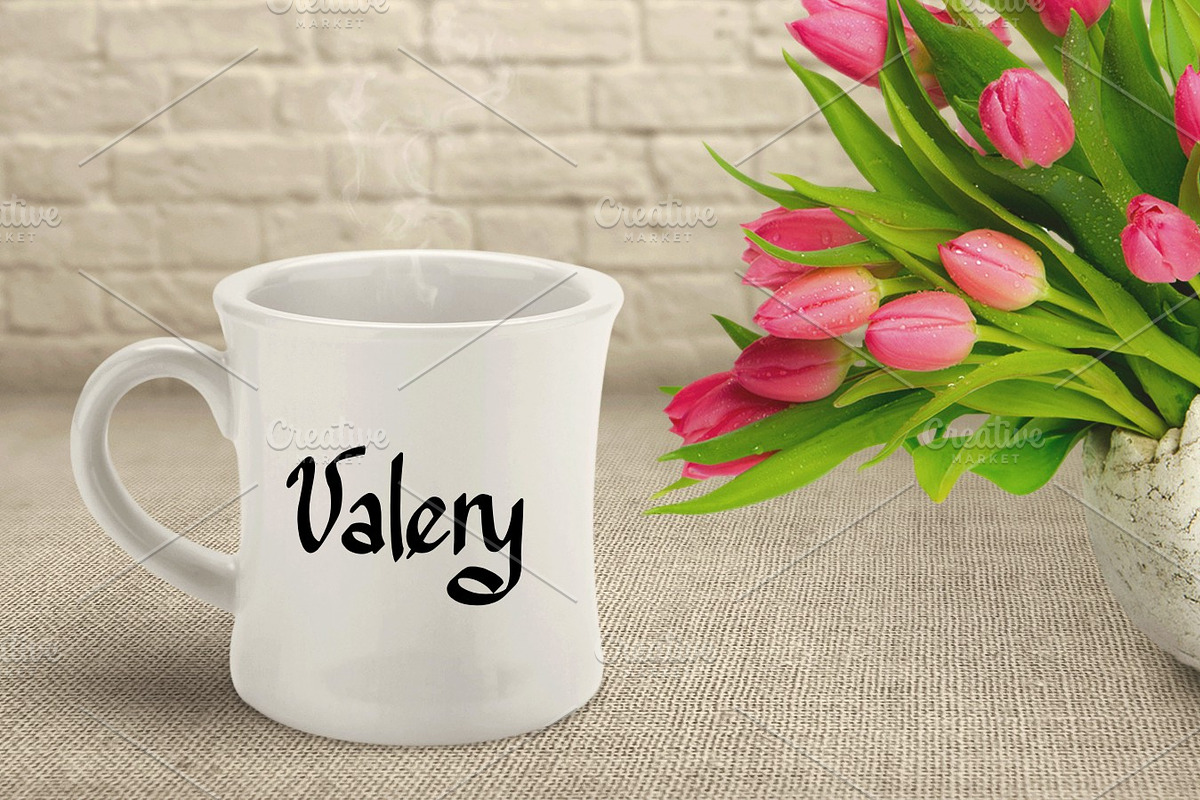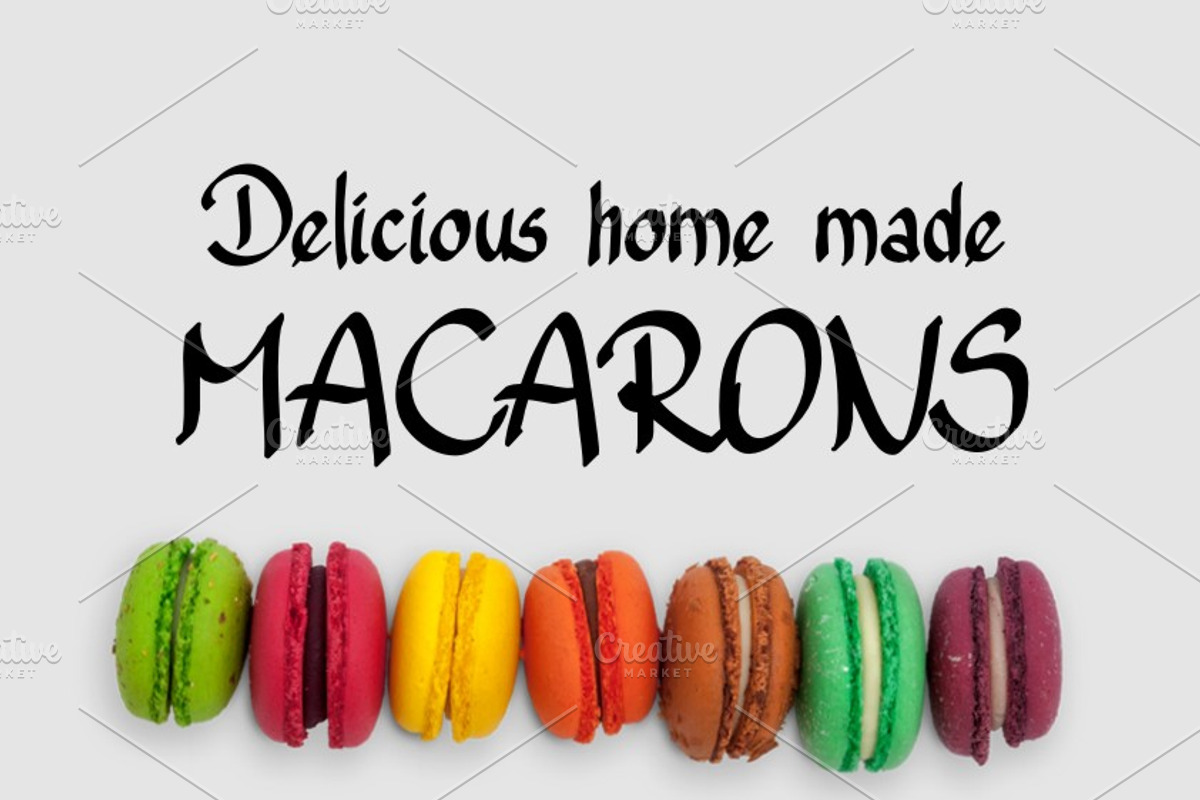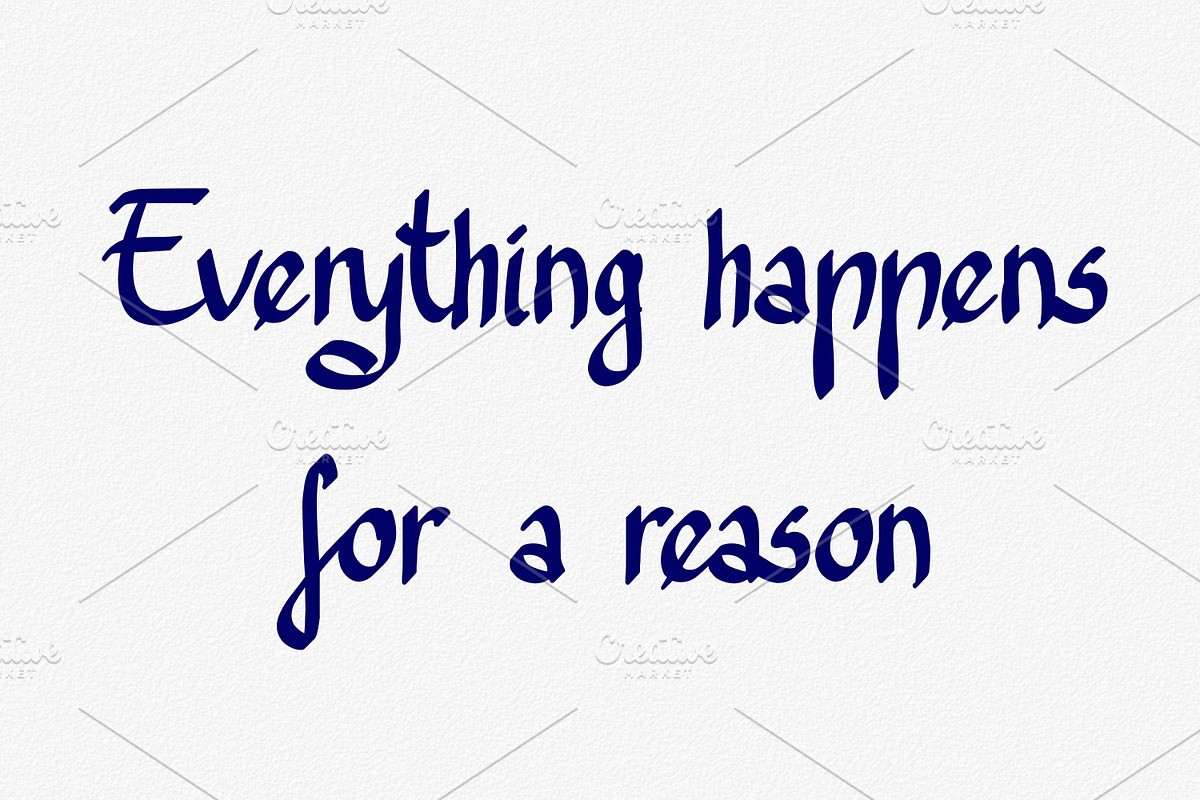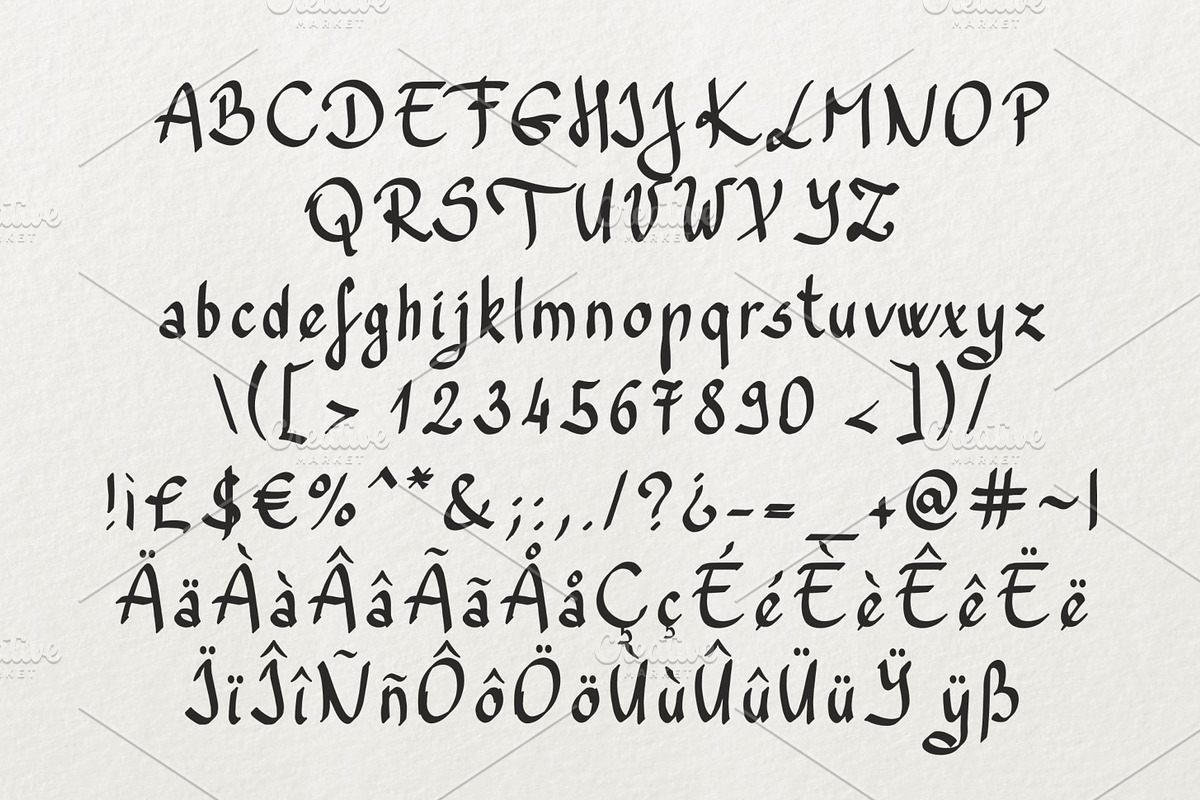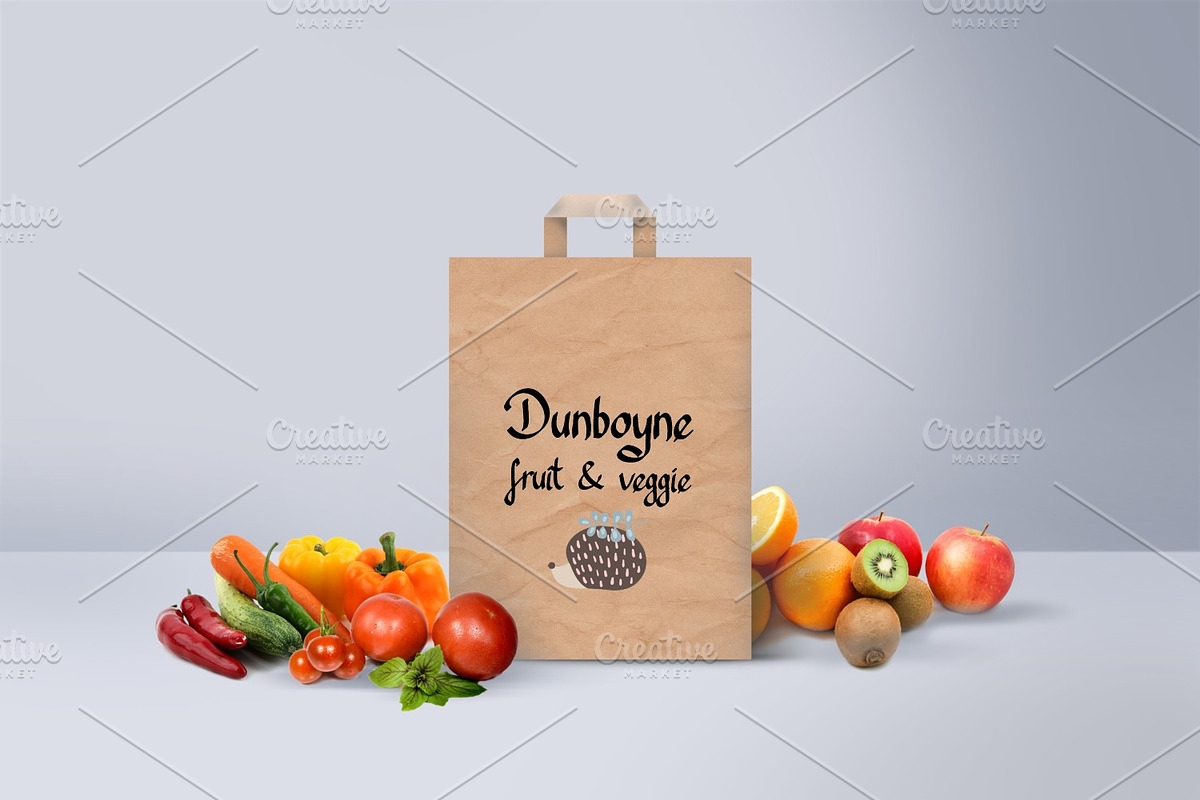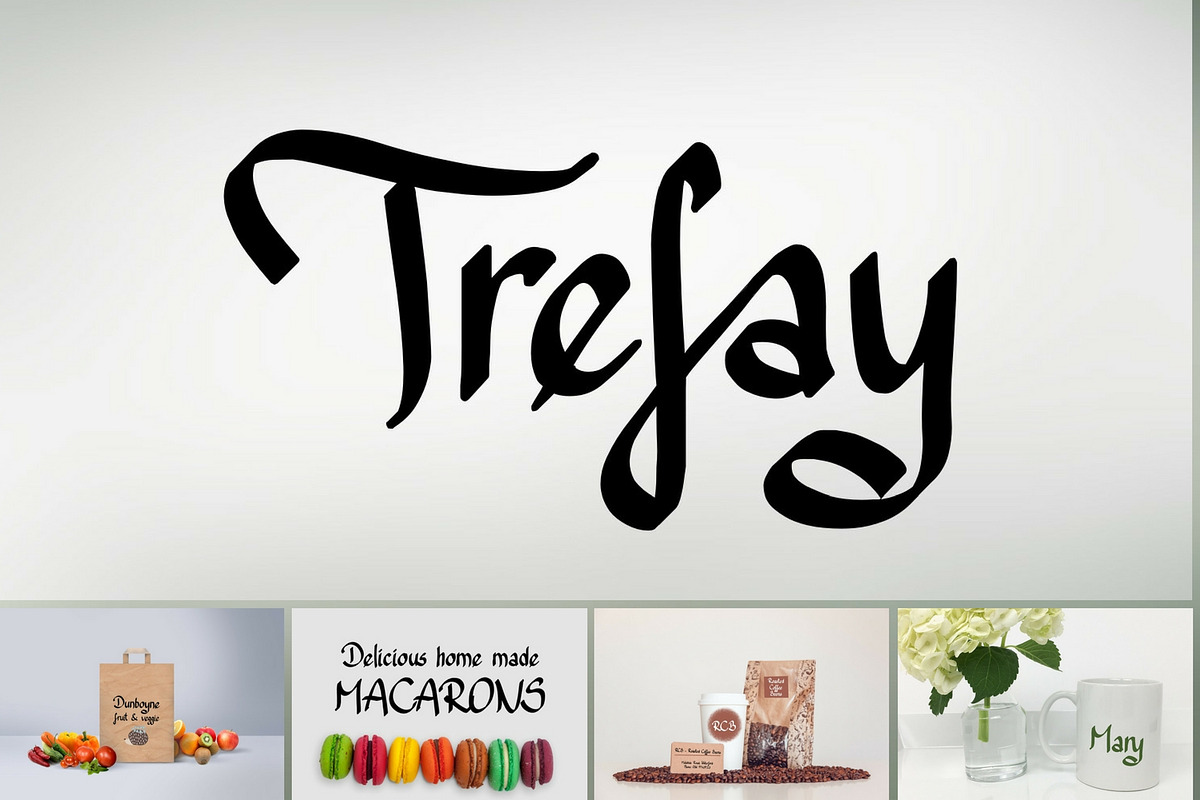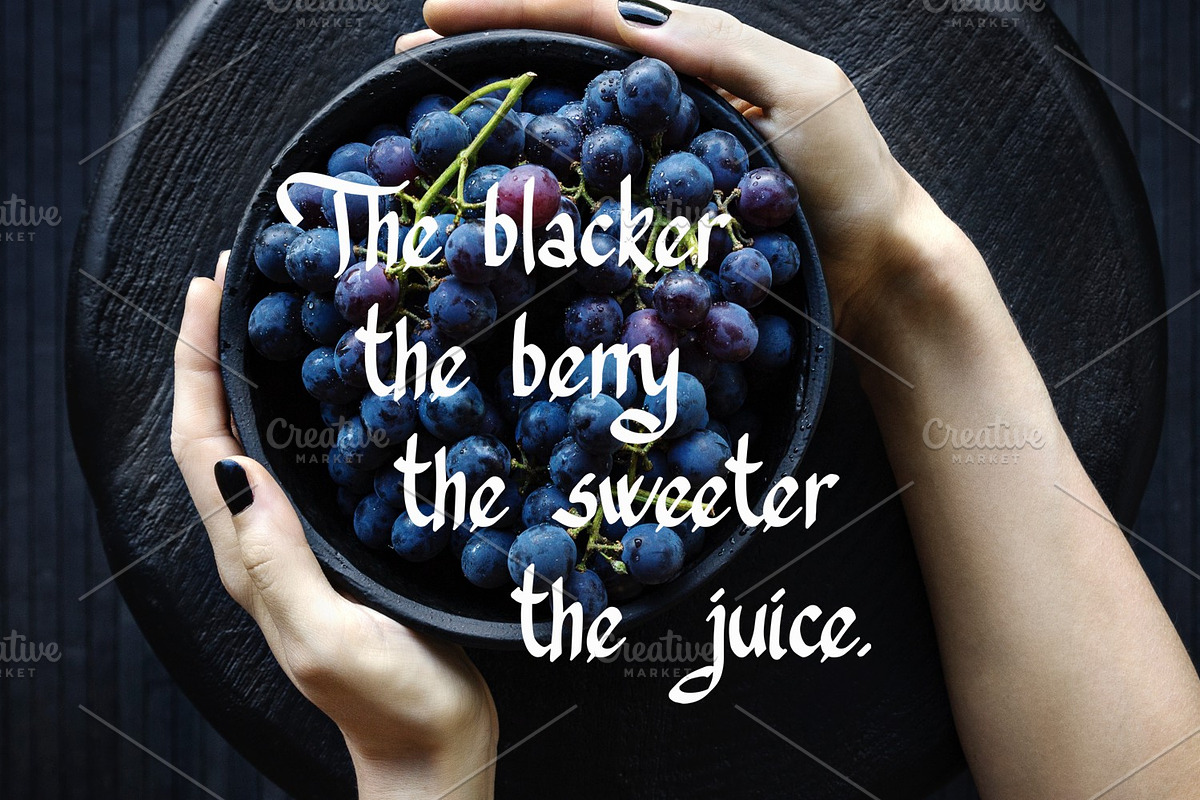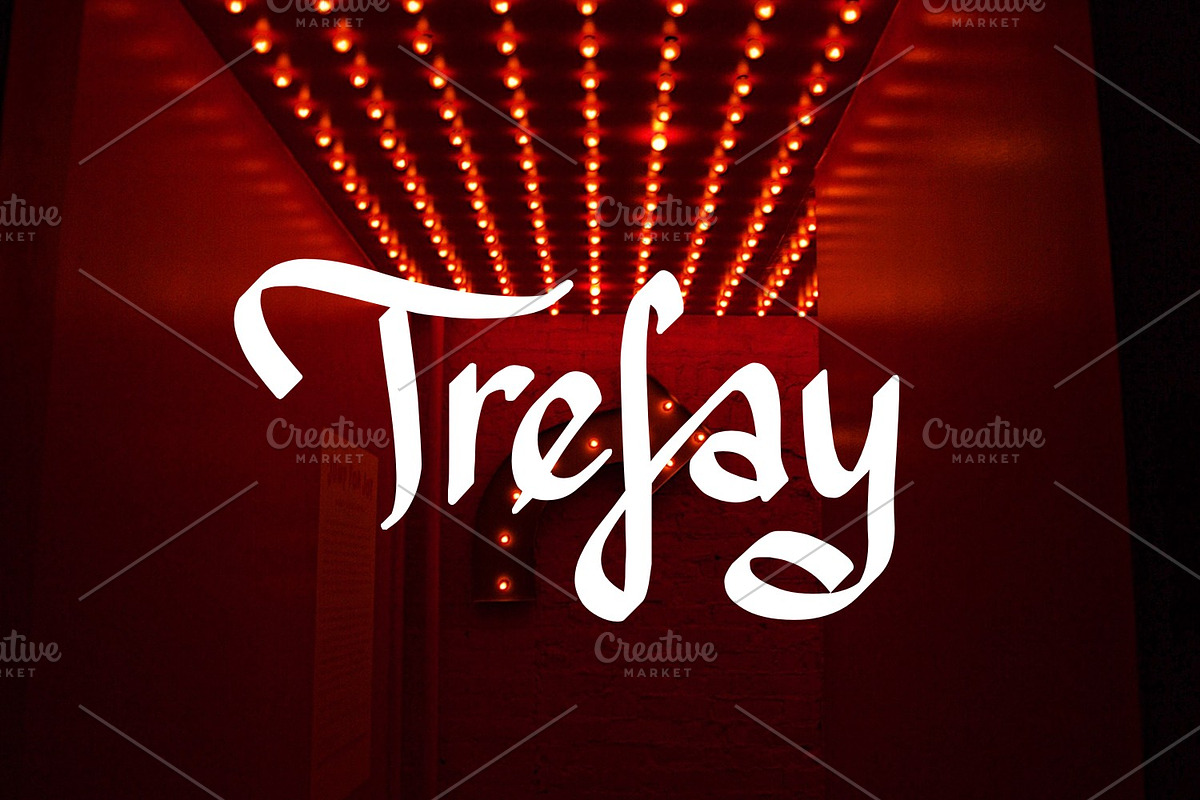
Trefay Font
Introducing Trefay handwritten typeface.
Multi purpose use as it has upper cases, lower cases, numbers, punctuation, extended with Europian characters.
Great for books, flyers, branding, titling, signage, logo, poster, flyers or t-shirts design, headlines, and more!
Trefay Font by Digital Typeface Studio fits naturally into Branding, posters, packaging, typography.